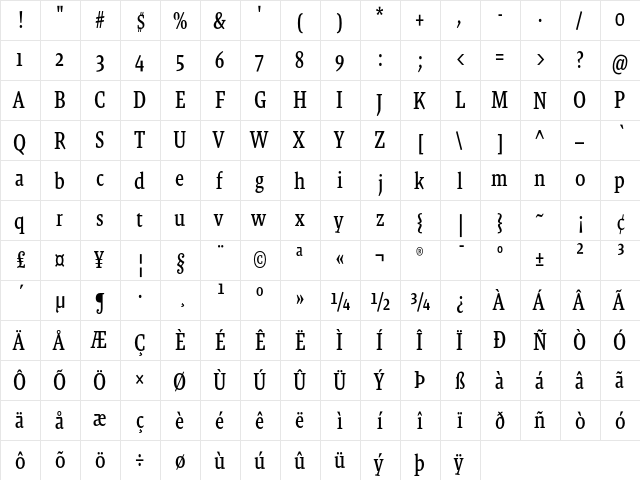
Malaga Narrow OT Reg
| Foundry | Emigre Inc. |
| Designer | Xavier Dupre |
Design Context for Malaga Narrow OT Typeface
Malaga Narrow OT offers clean, dependable letterforms without strong stylistic allegiance, making it a practical choice for designers who need flexibility. The condensed width makes it efficient for tight spaces without sacrificing legibility.
Pro Tip: Pair Malaga Narrow OT with a font of contrasting weight or personality to build a more expressive typographic hierarchy.